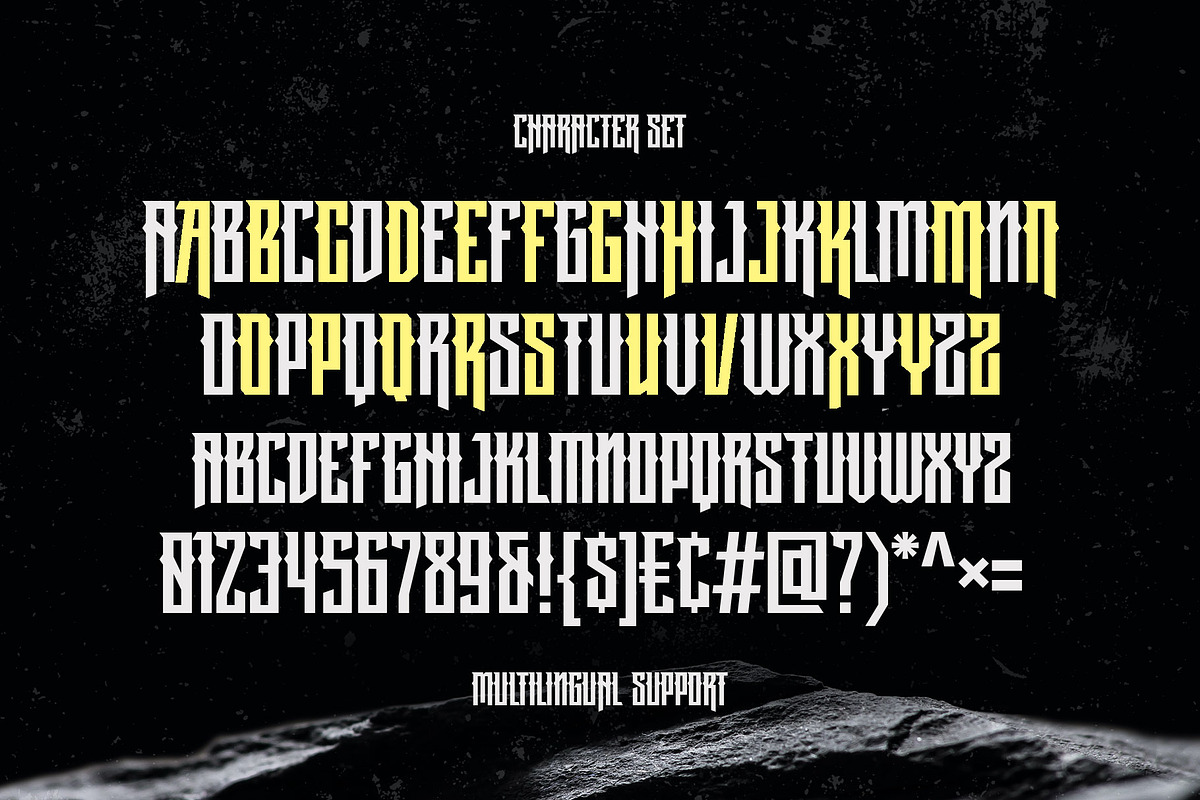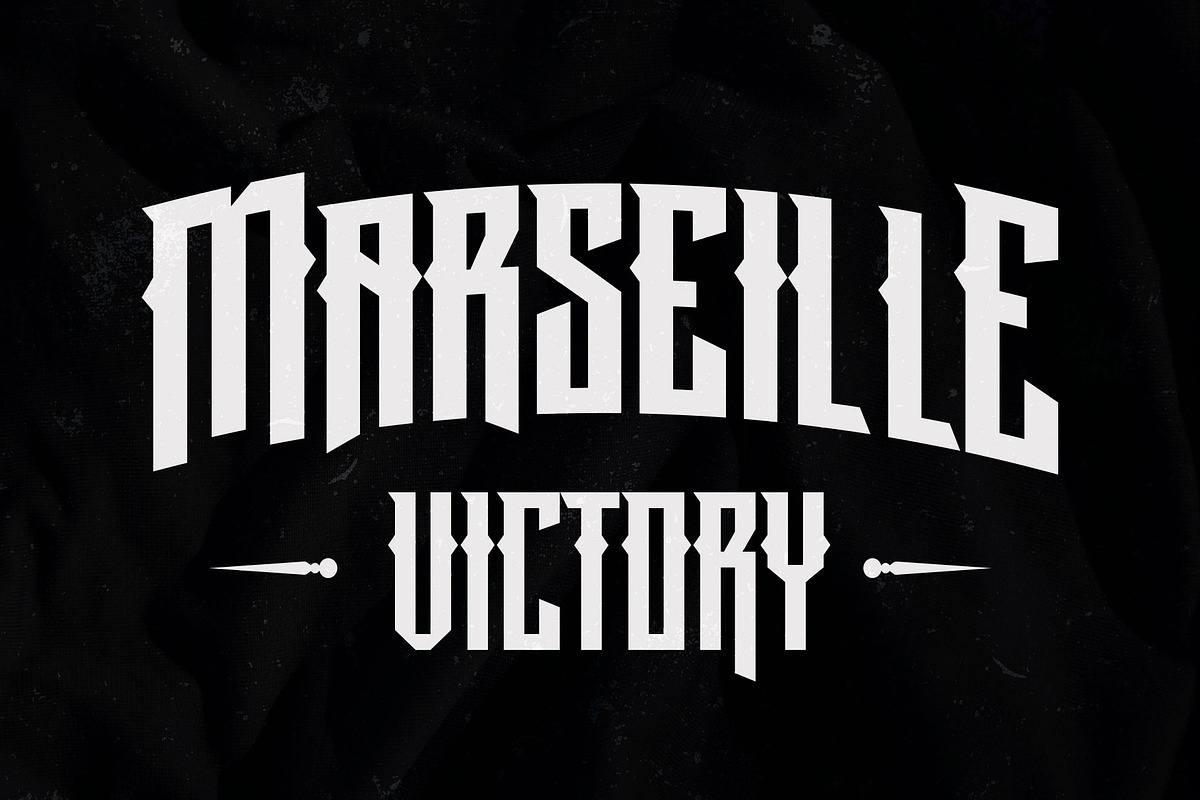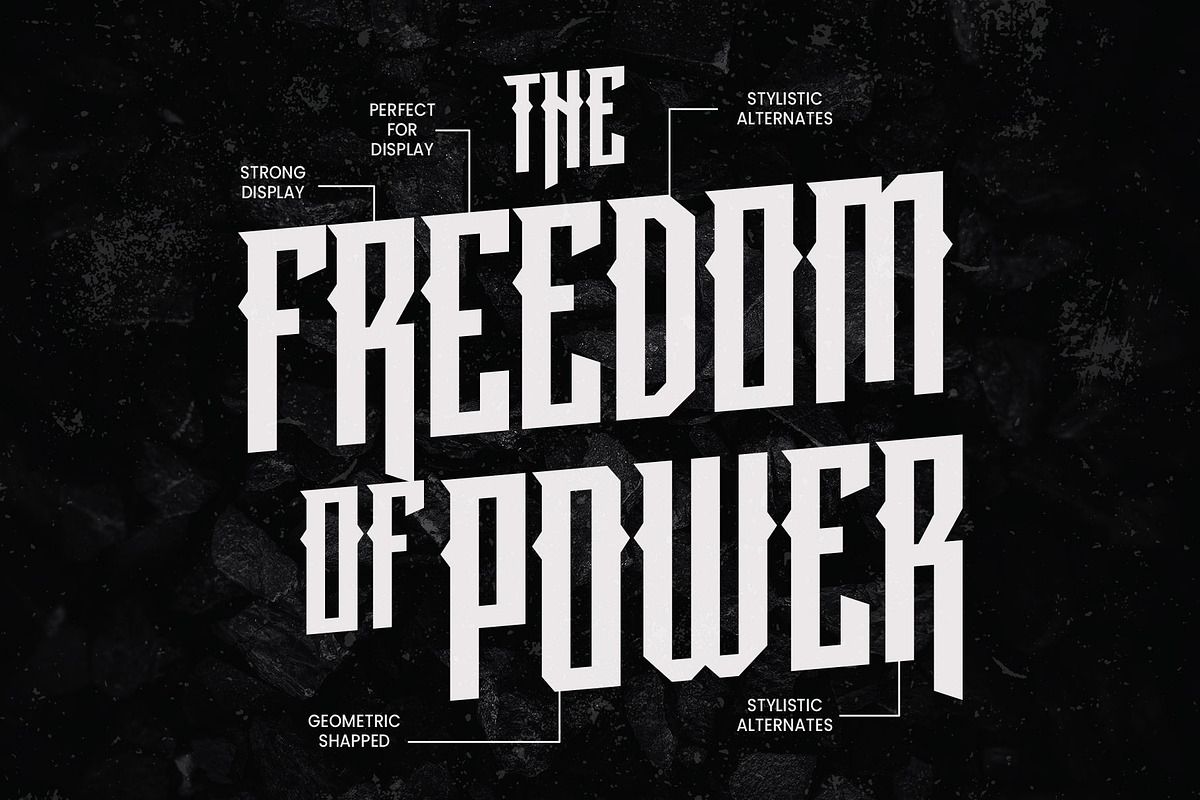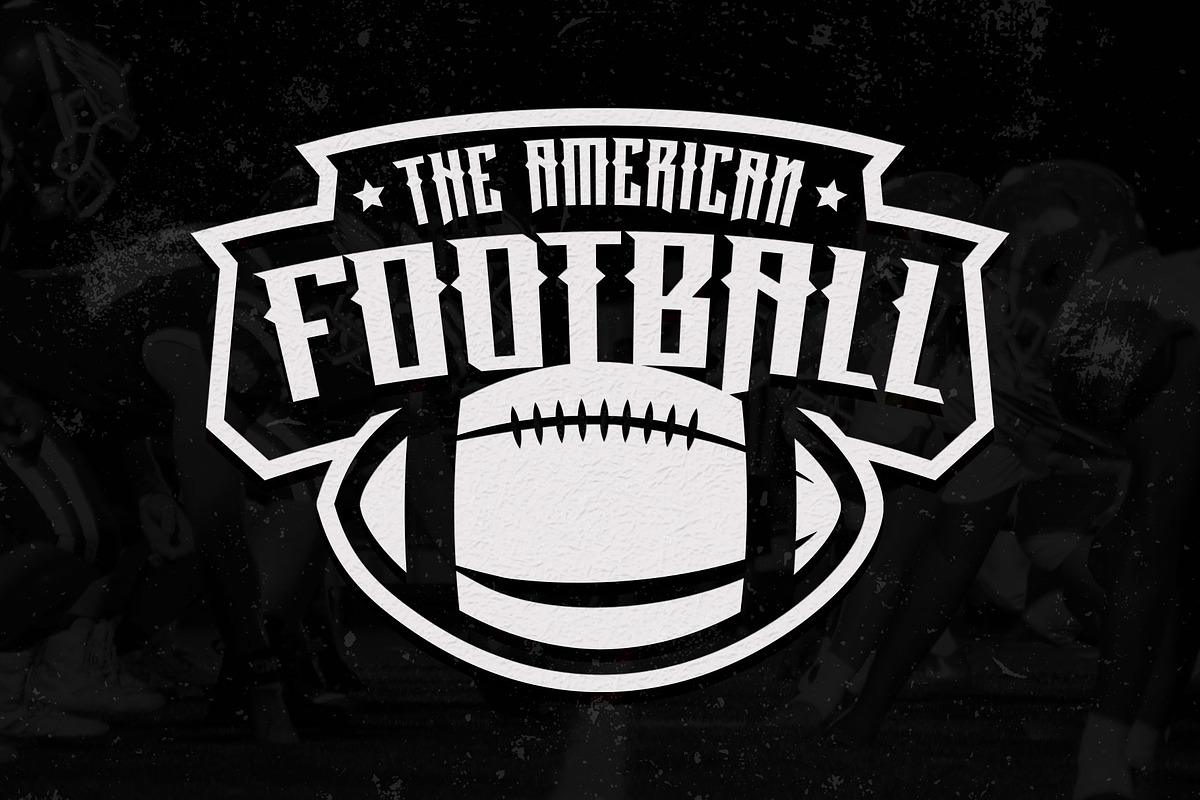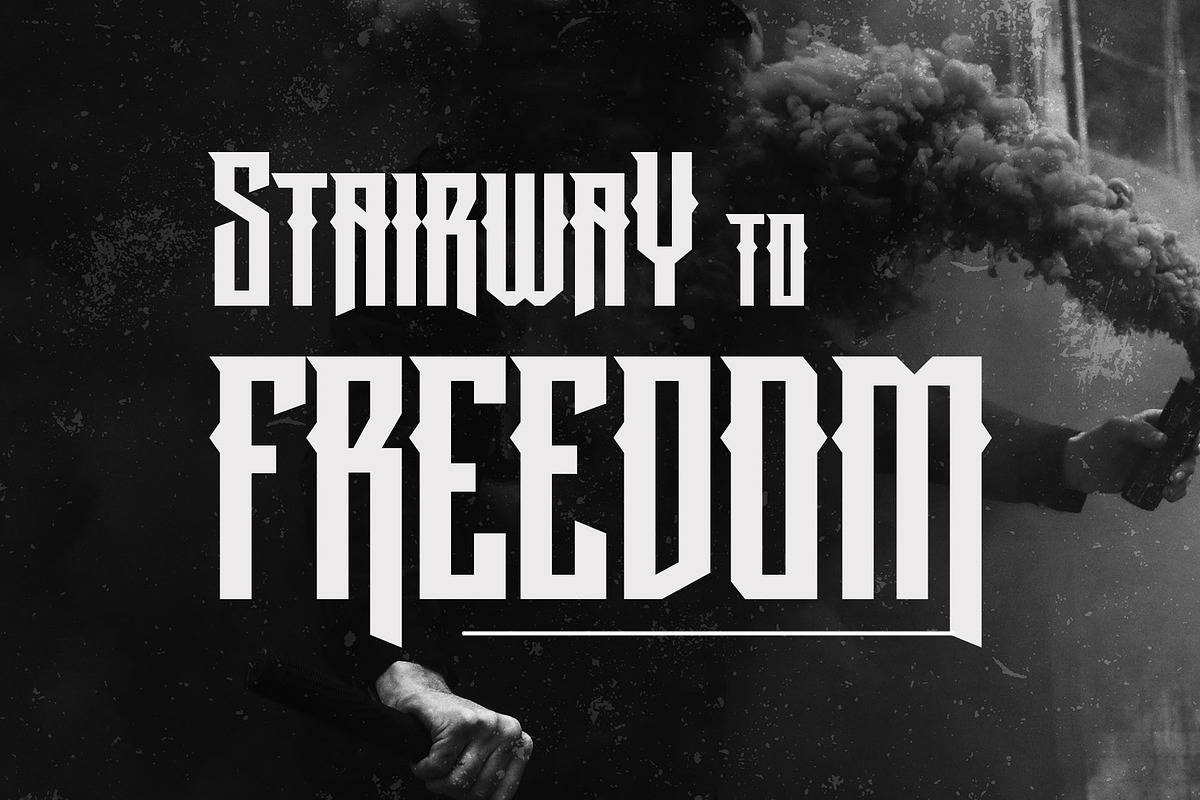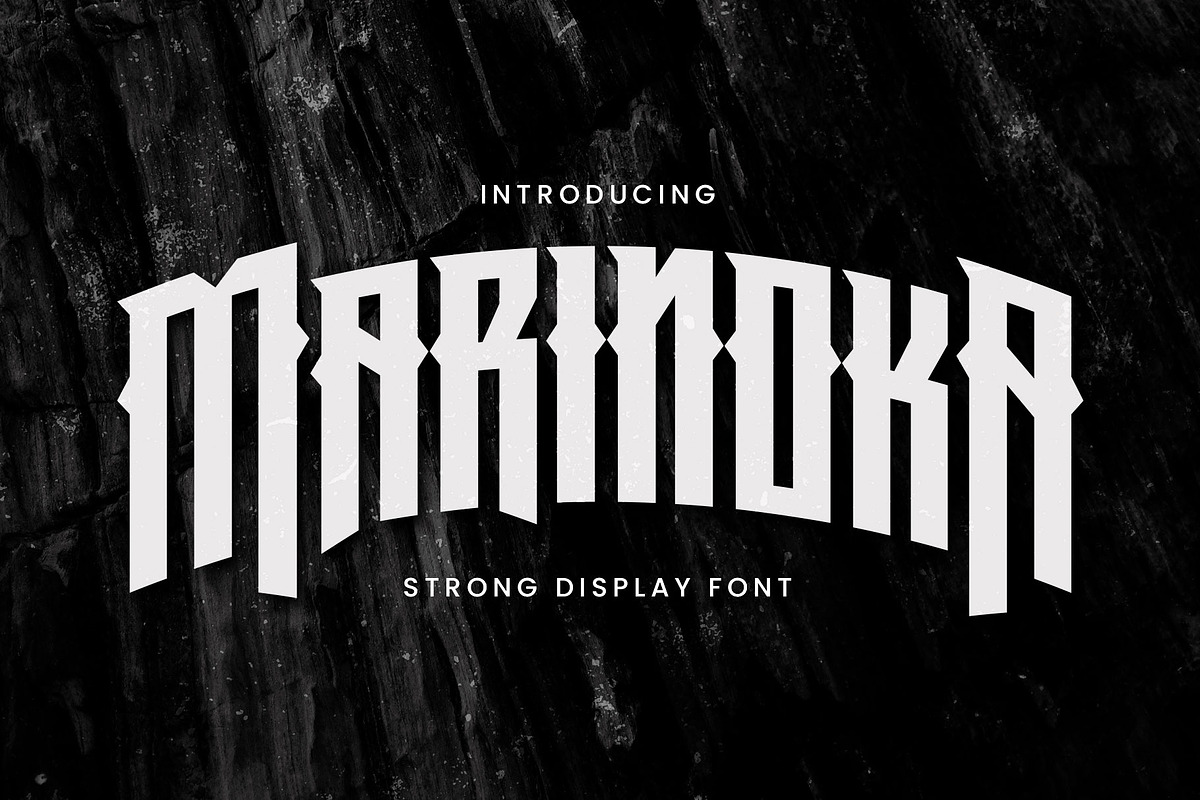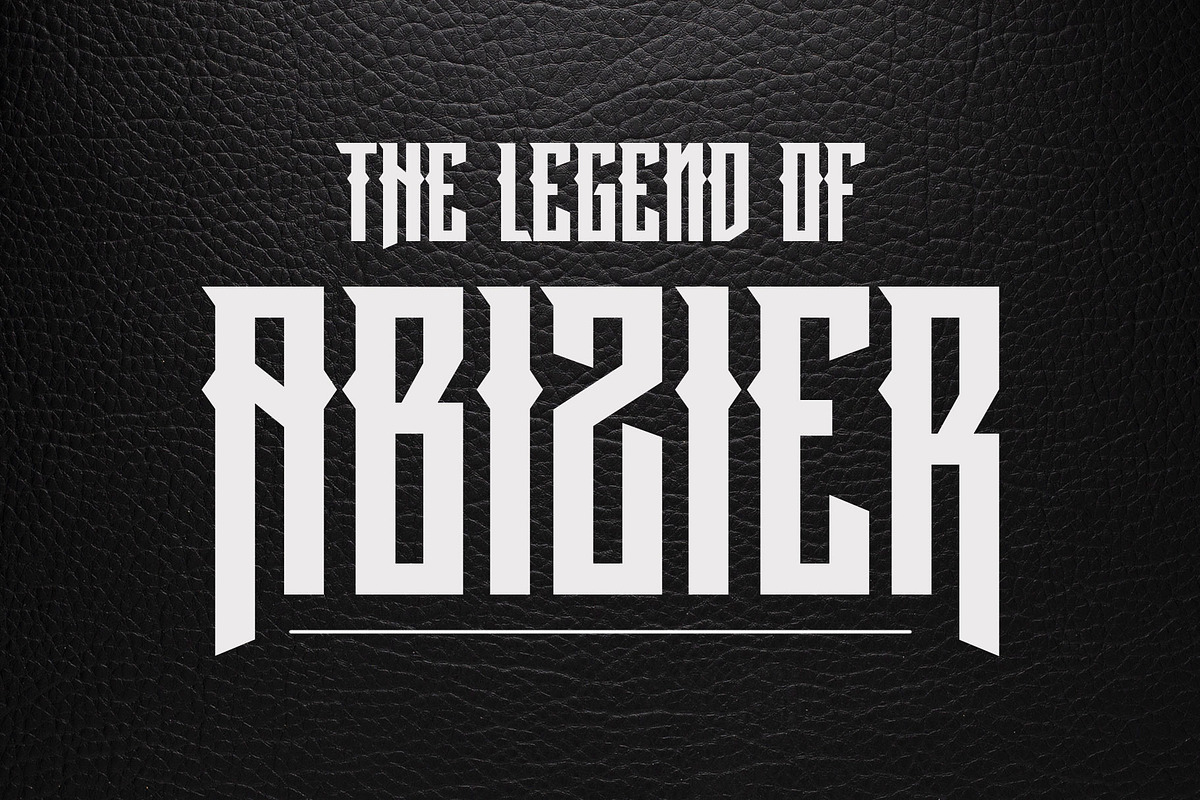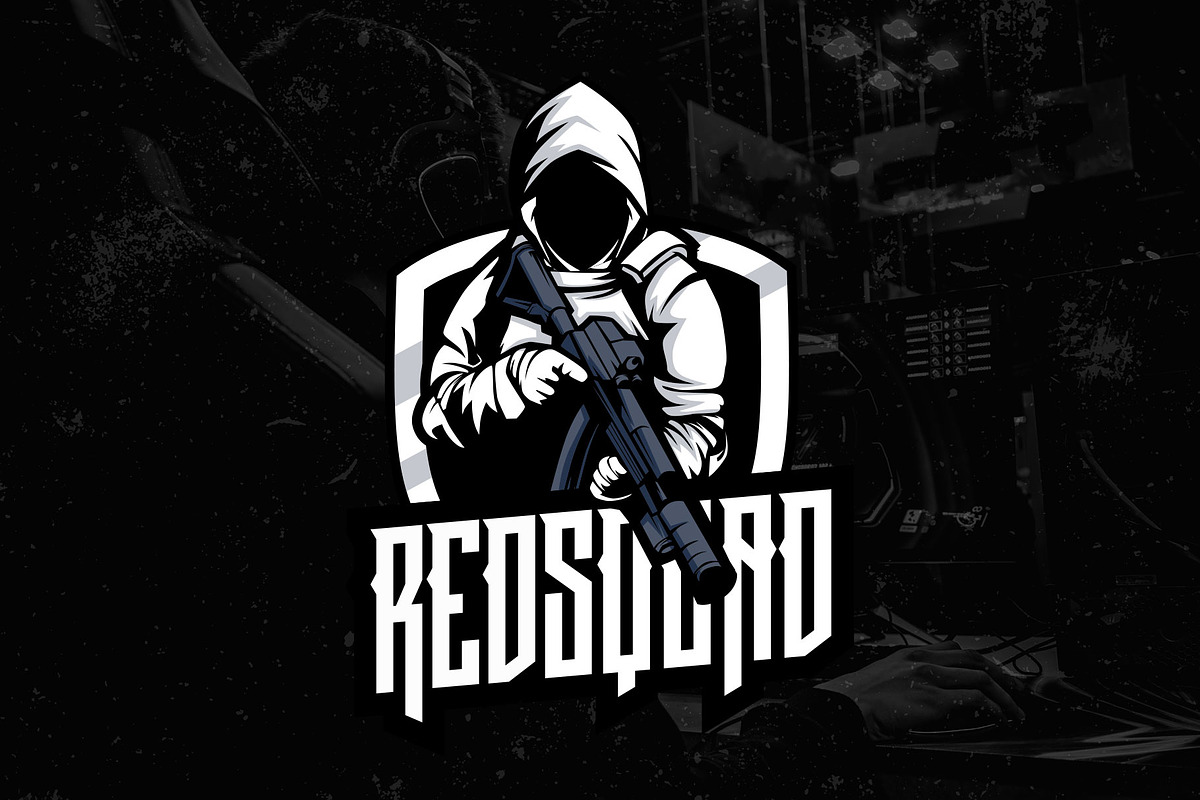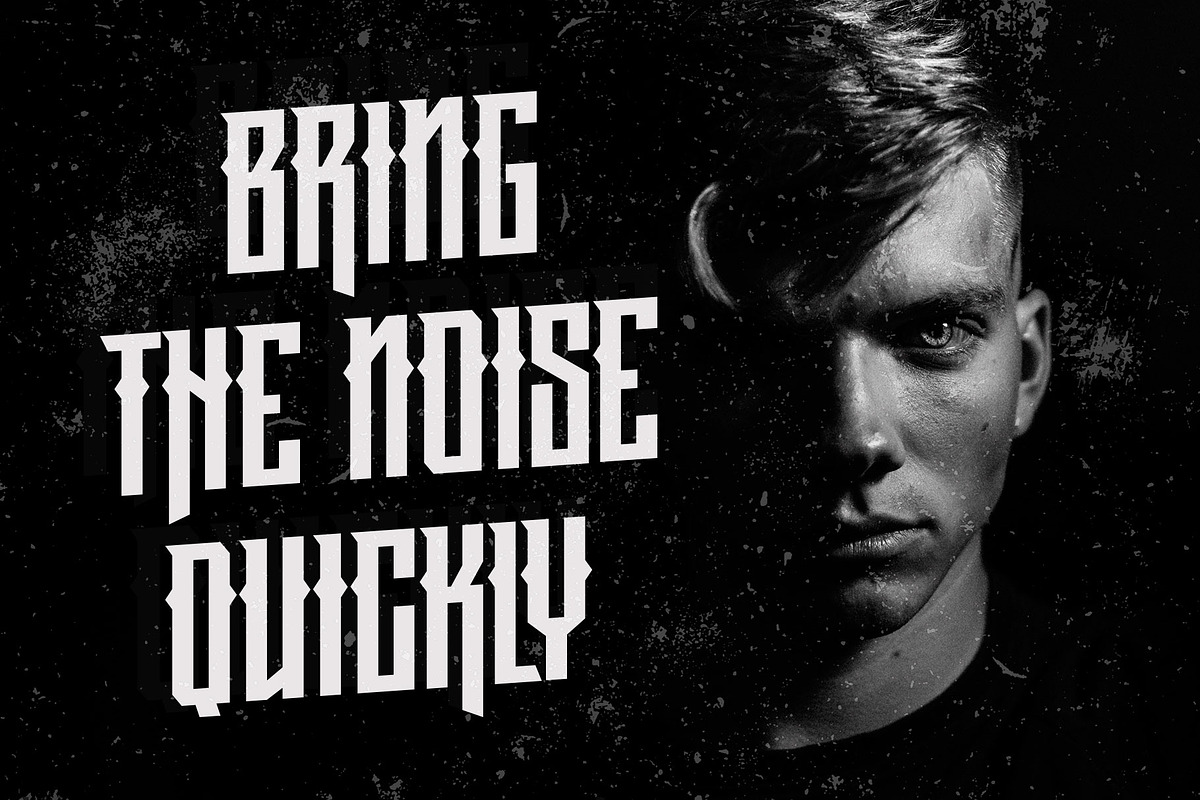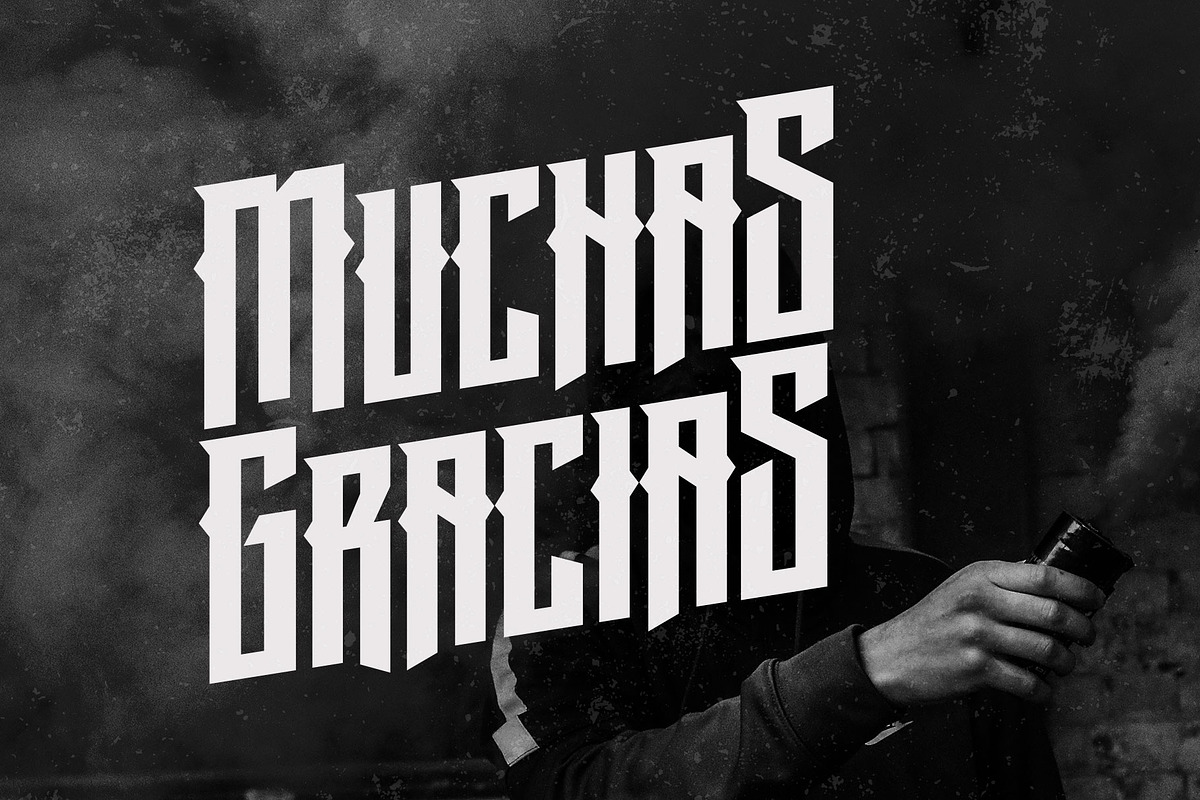
Marinoka - Blackletter
Introducing Marinoka, a condensed font with a modern look. This font has strong strokes and geometric shapes that represent power and strength. Suitable for sporty themes, dark, masculine, underground, urban, and more! Even you can apply this font for gaming purposes! it's perfect for the game logo, the game itself, and the merchandise.
Marinoka is a capital font with small-caps letters, equipped with alternates in the small caps that you can mix and match to give your design looks more powerful.
- Smallcaps
- Stylistic alternates